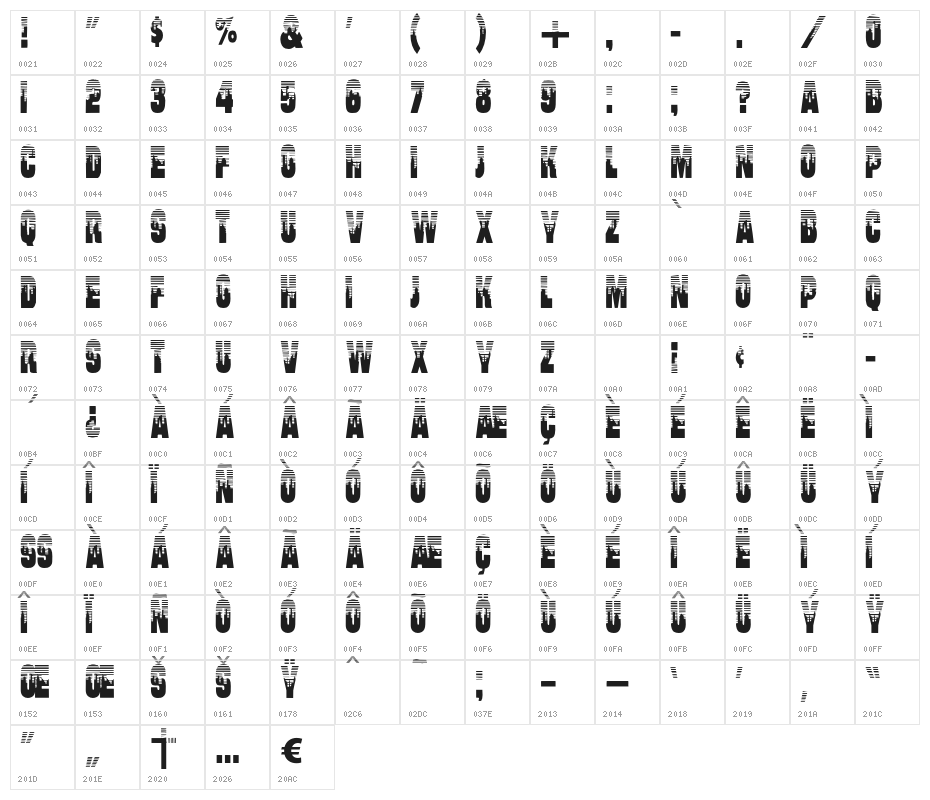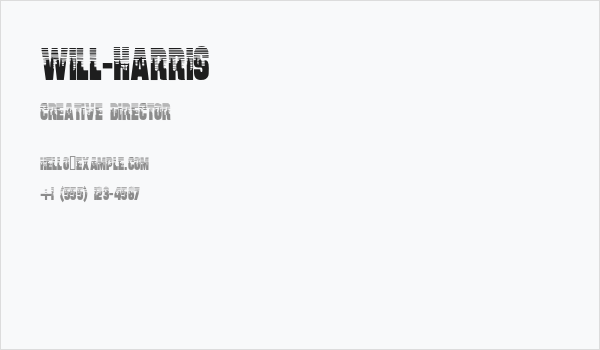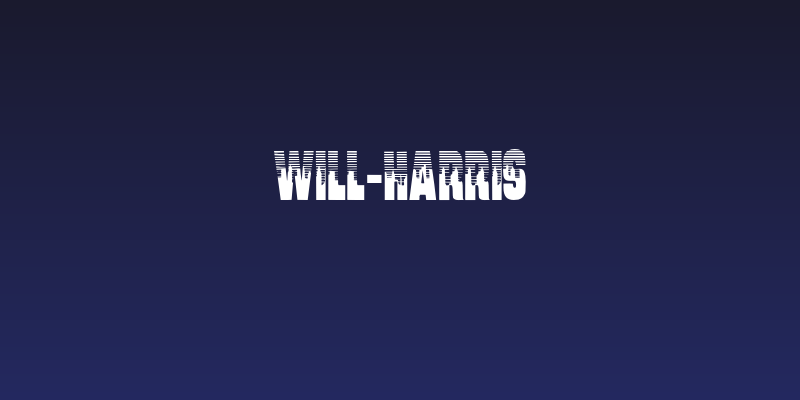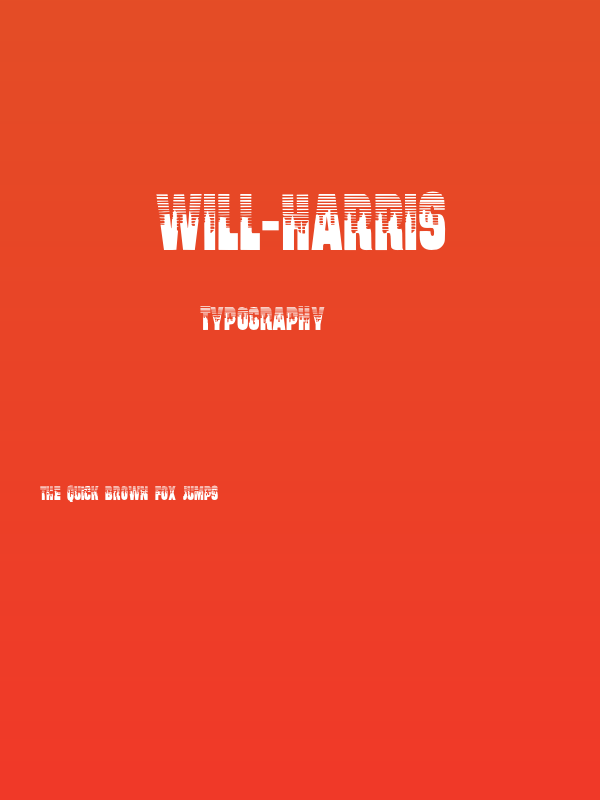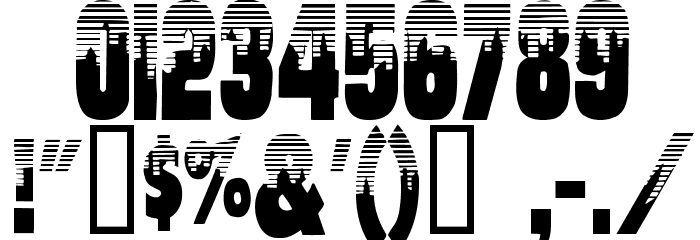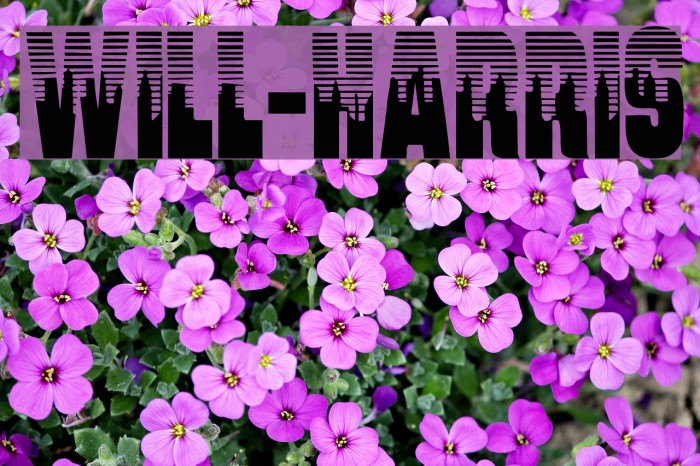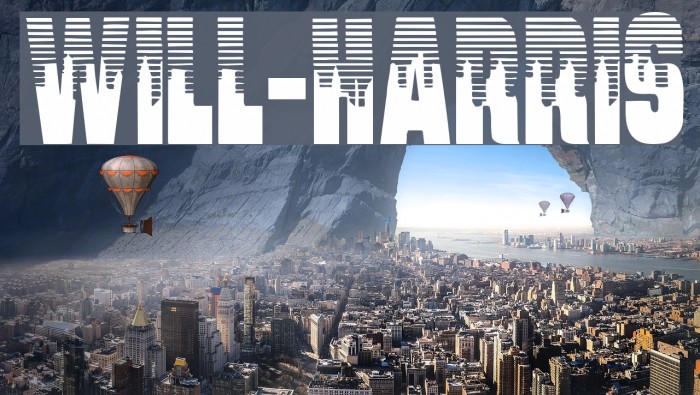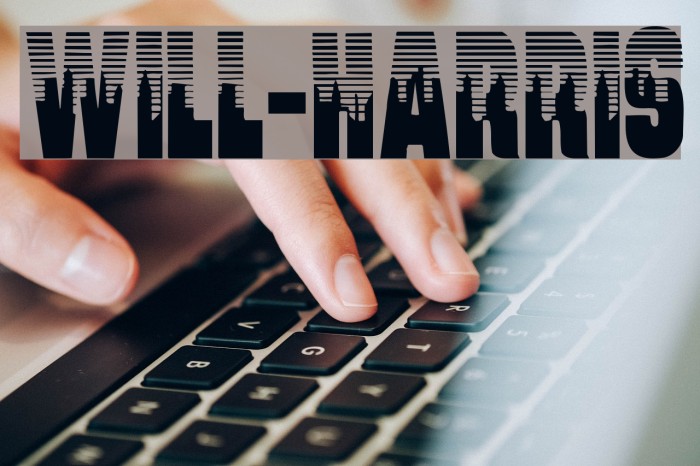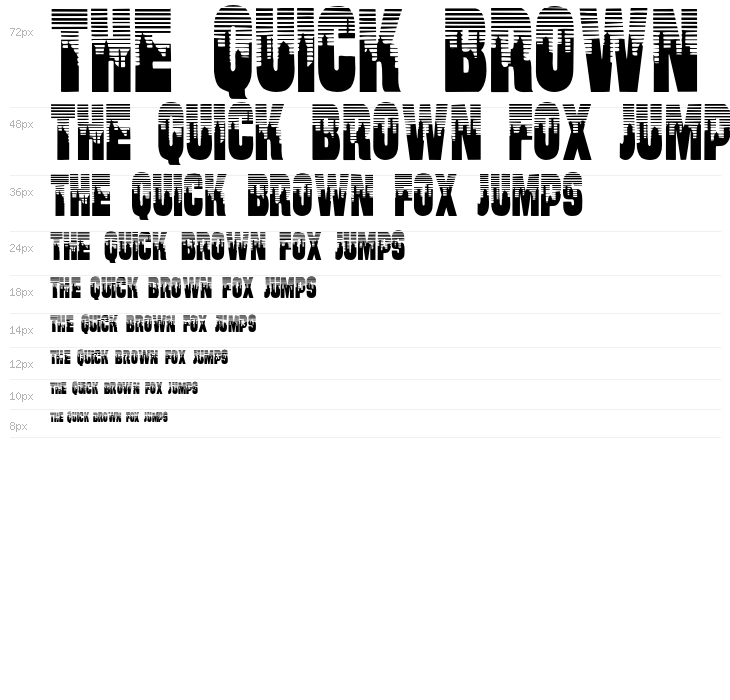
Will-Harris Font
Will-Harris Description
This font features a bold and striking design with a unique pattern of horizontal lines that create a gradient effect, giving the impression of a city skyline. The uppercase letters are particularly prominent, with a strong presence that makes them ideal for attention-grabbing headlines. The numbers and special characters maintain the same bold style, ensuring consistency across all text elements. The font's design is highly decorative, making it suitable for projects that require a modern and urban aesthetic.
| Proposed Projects | Ideal for urban-themed posters, modern advertisements, and eye-catching headlines. |